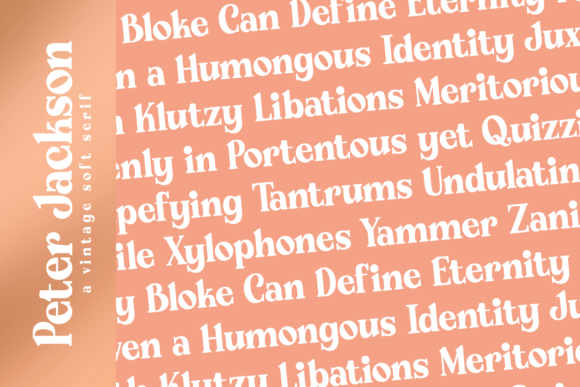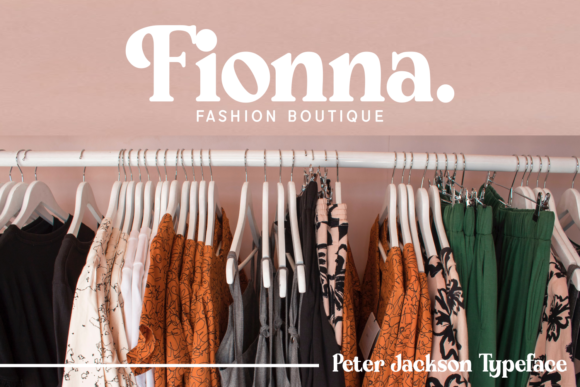
Introduction to Peter Jackson Font
Have you ever been working on a creative project, pouring your heart and soul into a design, only to feel like something is missing? Maybe you’re searching for that perfect font to give your headline the oomph it needs. Well, I’ve got exciting news for you – you might just be looking for the Peter Jackson Font!
This gorgeous vintage styled display font is a game-changer for designers looking to add a touch of nostalgia and elegance to their work. With its strong, confident, and dynamic feel, the Peter Jackson Font is perfect for creating high-quality designs that truly stand out. Whether you’re working on a free download or a paid project, this versatile font is sure to become a trusted design resource.
Key Features of Peter Jackson Font
- High-quality, professional font design suitable for creative projects, such as movie posters, advertisements, and graphic novels.
- Unique, hand-drawn style with a transparent background, making it easy to overlay on images and videos without any visual obstruction.
- Perfect for designers seeking a distinctive, high-quality design resource for their projects, including film titles, logos, and typography.
- Designed to provide a creative and artistic feel, ideal for designers working on high-end, visual projects, such as movie titles, video game graphics, and animated sequences.
Honest Review: Peter Jackson Font
As a designer, I’m always on the lookout for high-quality design resources to elevate my creative projects. The Peter Jackson Font caught my attention, and I decided to give it a try.
What works well: ✨ The font is incredibly versatile and suitable for a wide range of design applications, from movie posters to book covers. The Peter Jackson Font is a great choice for designers who want to add a touch of elegance and sophistication to their work. I particularly appreciate the font’s compatibility with various software, making it easy to integrate into my design workflow.
- Suitable for creative projects
The Peter Jackson Font is suitable for various creative projects, including movie posters, book covers, and advertisements. Its high quality and versatility make it an excellent choice for designers and artists.